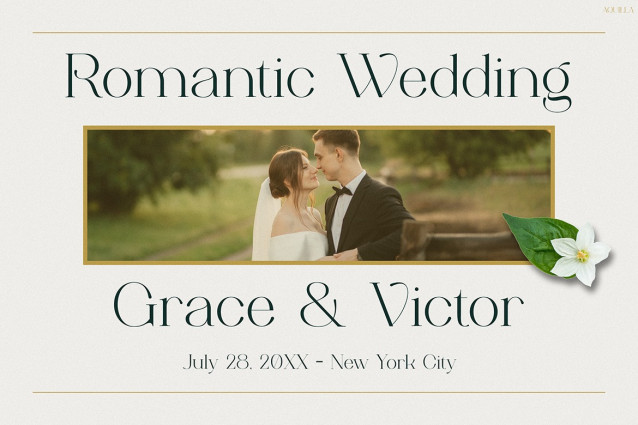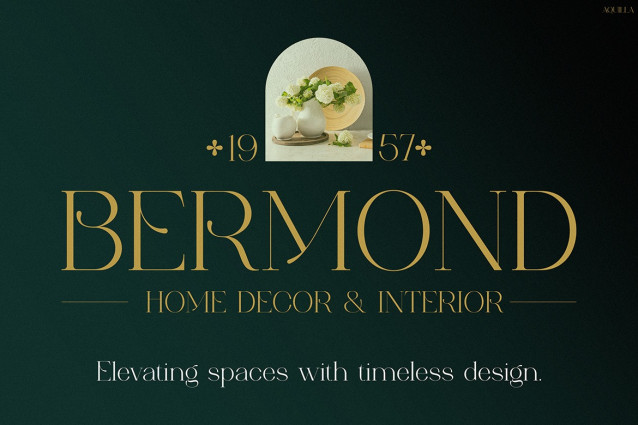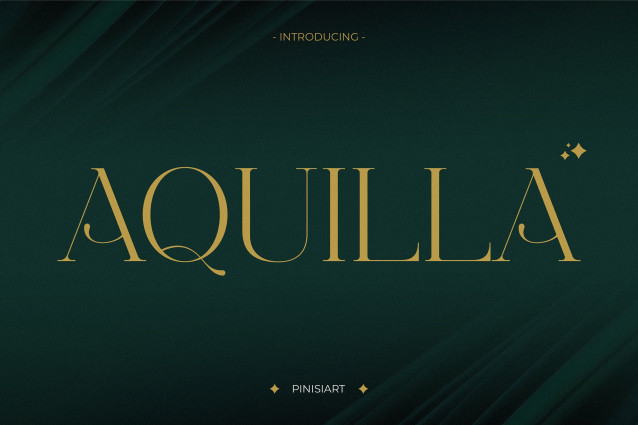
Aquilla Font is not just a typeface—it is a statement of style and refinement. Each letter is carefully crafted, and therefore the font radiates beauty and balance. With high-contrast details, smooth curves, and sleek serifs, it creates an elegant harmony on every page. Moreover, its design blends classical influence with modern simplicity, making it timeless yet fresh. As a result, Aquilla brings a premium feel to branding, invitations, packaging, and social media graphics.
In addition, the font works equally well in digital spaces and print projects. It scales beautifully, whether on small Instagram story text or large billboard campaigns. Because of this flexibility, it offers consistent elegance across platforms. Therefore, Aquilla does not only decorate your text—it elevates the overall design and leaves a lasting impression.